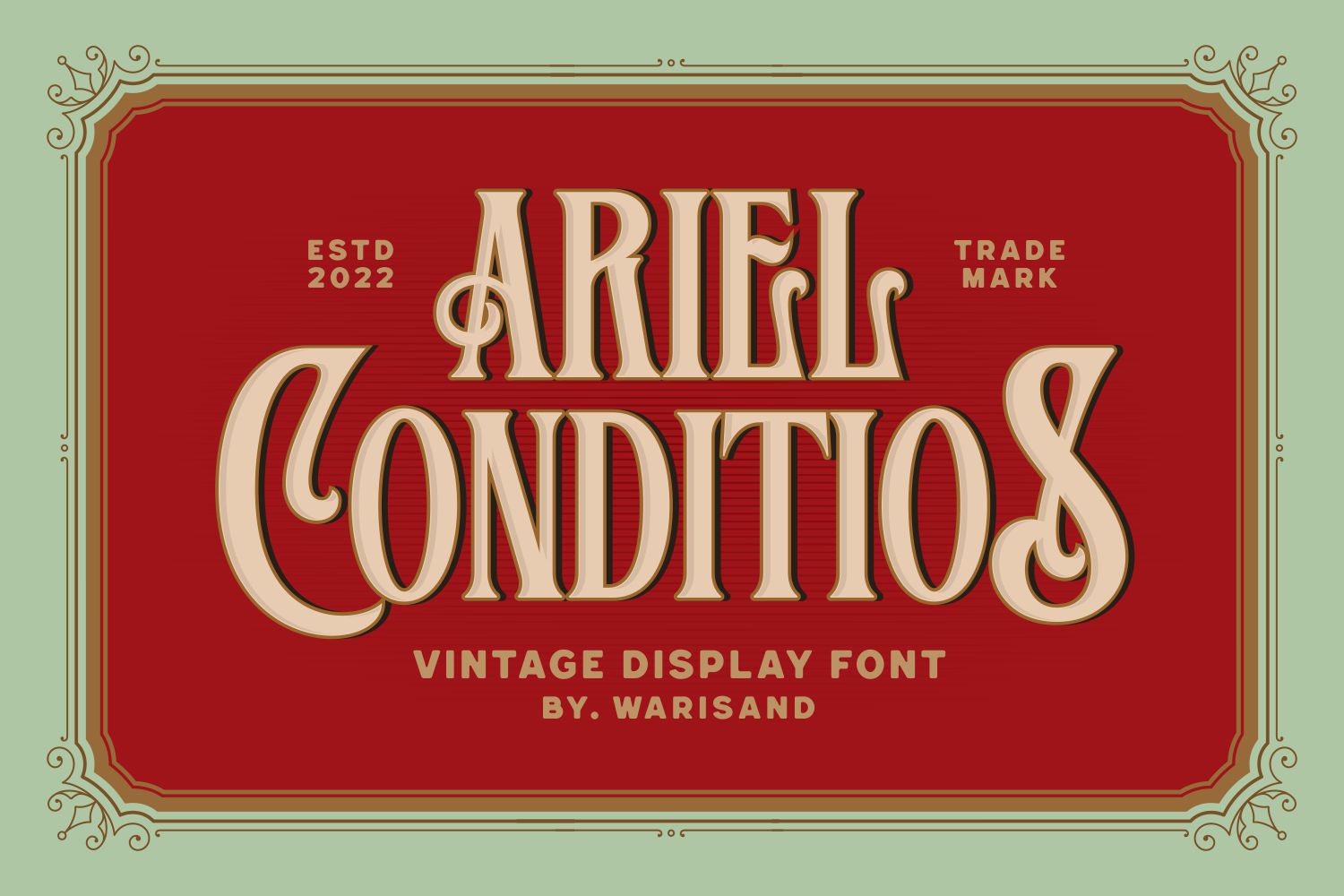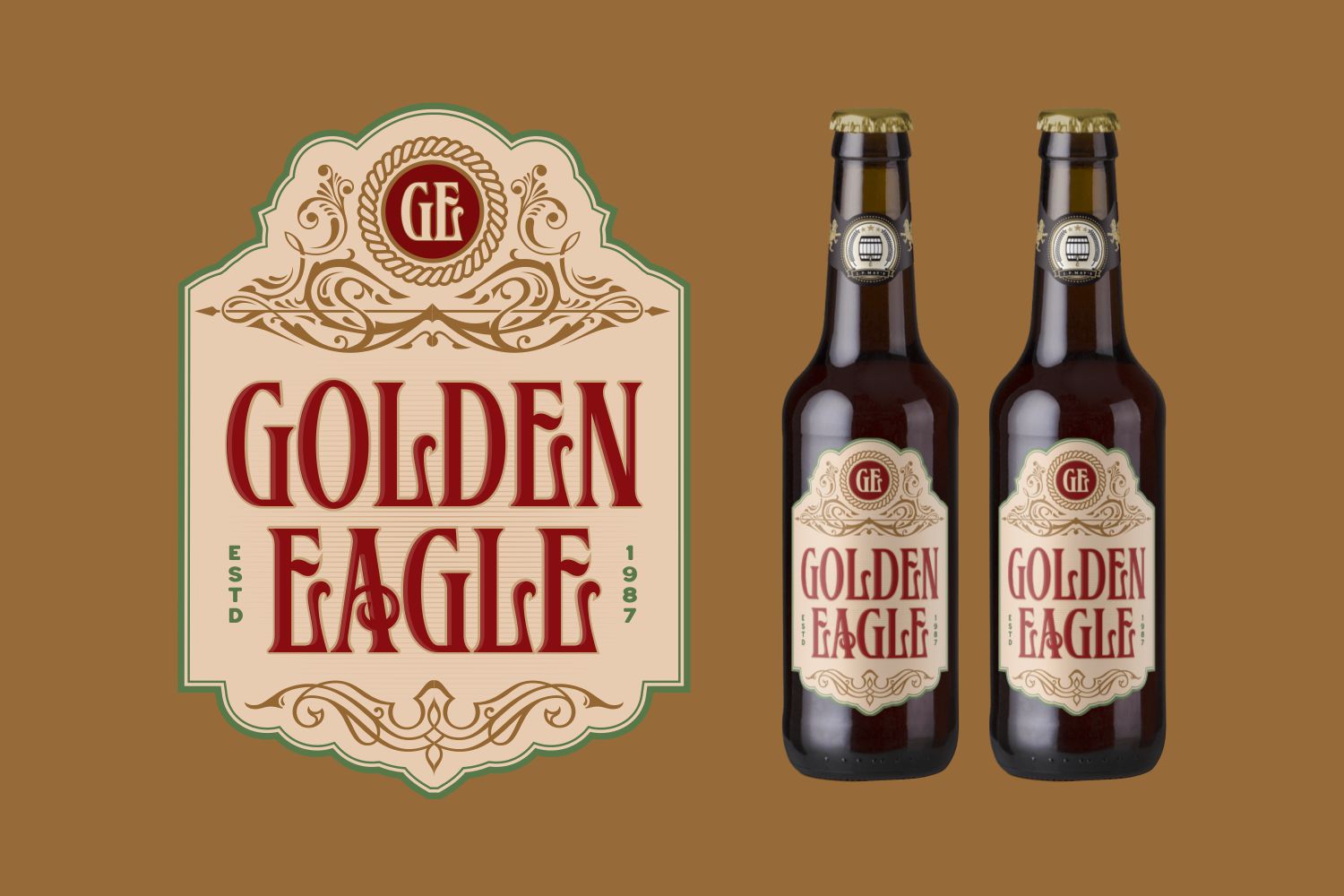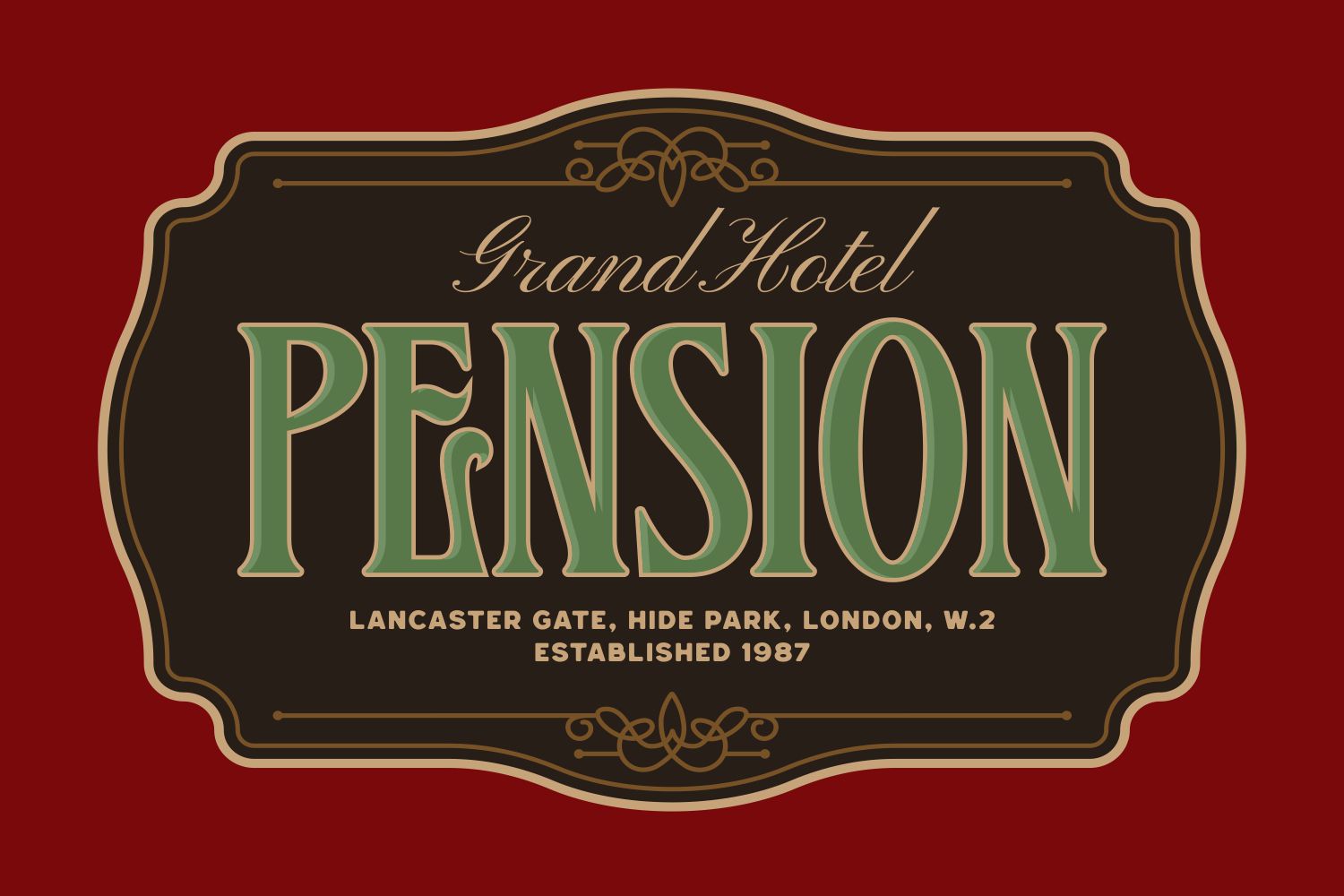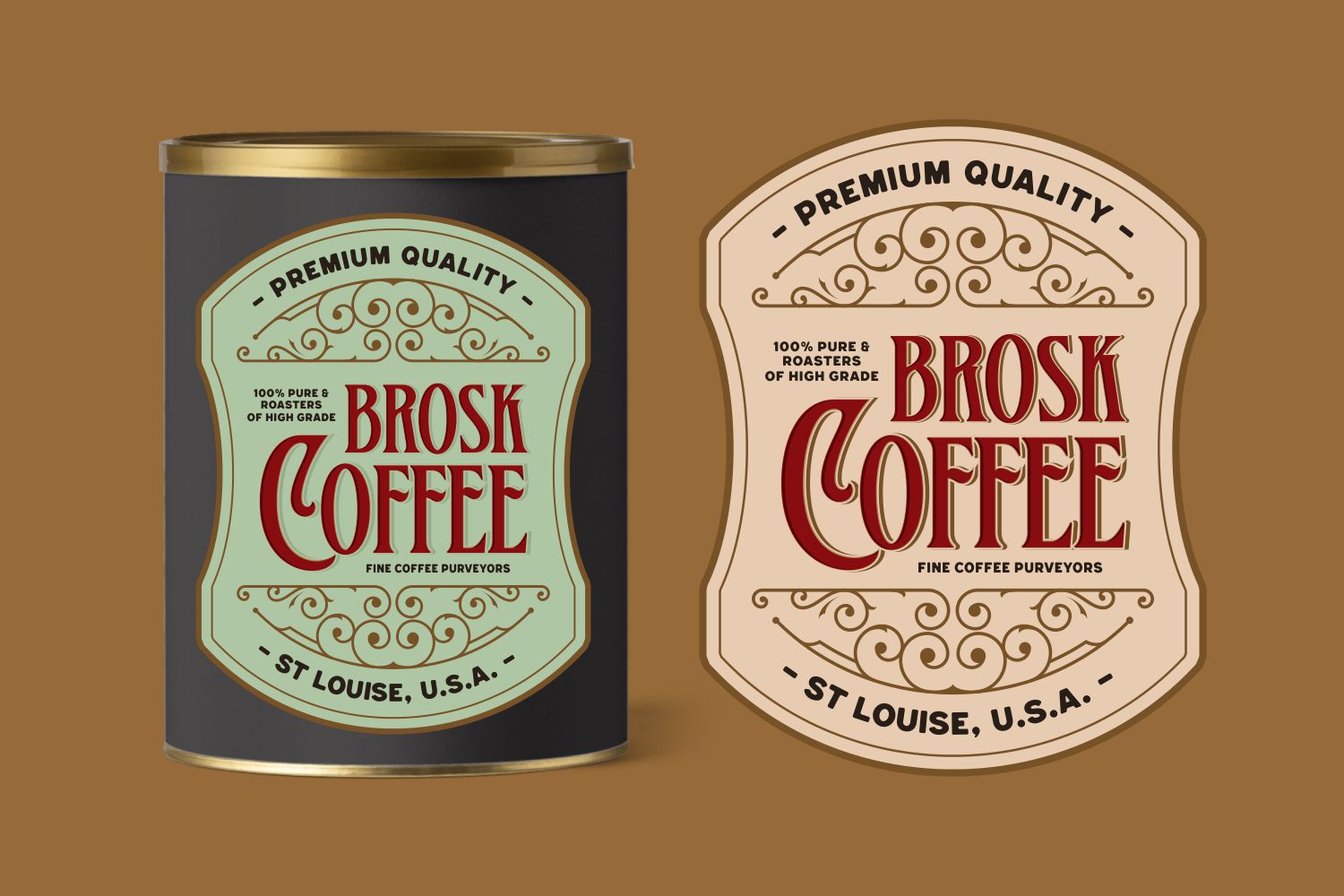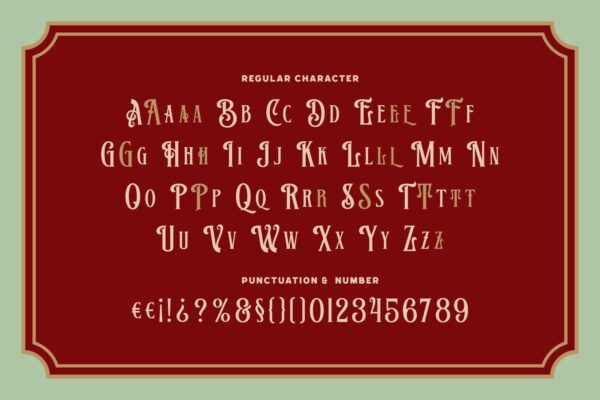
Ariel Conditios is a vintage display serif that blends tall, condensed forms with ornamental swashes and crisp contrast. Inspired by classic labels and hotel signage, its sculpted terminals and subtle bevel feel premium and nostalgic at once, making headlines stand upright with confidence while keeping a graceful rhythm. The typeface shines on heritage-themed branding where elegance, warmth, and presence matter.
Equipped with uppercase and lowercase letters, punctuation, numerals, and a selection of stylistic alternates and ligature-inspired forms, Ariel Conditios is highly versatile for logos, badges, packaging, bottle labels, and editorial titles. Whether you’re crafting a coffee tin, brewery label, or boutique mark, it delivers refined character and consistent legibility across print and digital applications.
Ariel Conditios